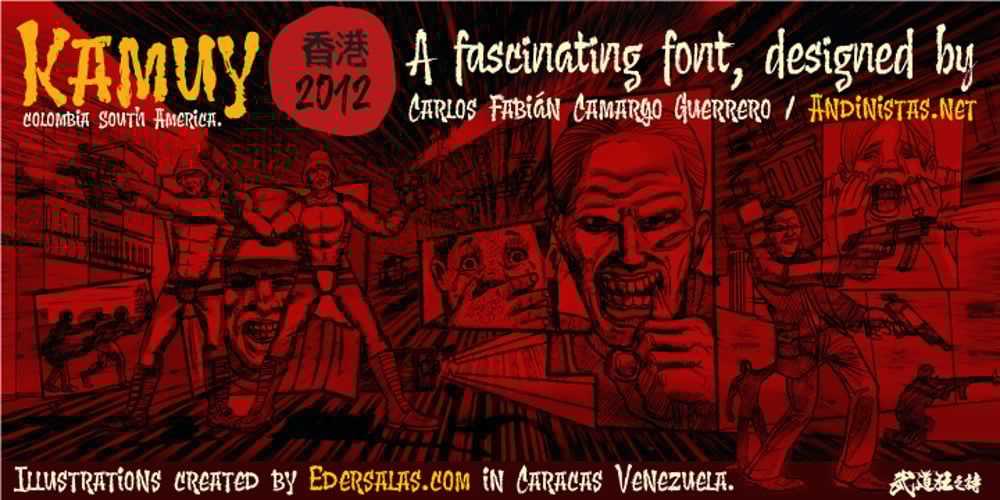
Kamuy Font Family was designed by Carlos Fabián Camargo Guerrero and published by Andinistas. Kamuy contains 2 styles and family package options. Kamui is a font designed by Carlos Fabian Camargo G. and used to write headlines. Its strategy makes it ideal for covers and advertisements with Japanese-style manga comics requiring latin style. Precisely its purpose was inspired by typographical classics such as Mistral by R. Excoffon and Zapfino by H. Zapf that then were diluted by separate strokes as blackletter calligraphy. However, high doses of miscegenation and lettering untimely torn between 50% esthetic and 50% legibility. That way his radical expression is highly profitable for composing and designing words and phrases with Eastern look. And more importantly, the writing seems drawn quickly with thin-tipped brush staining over a rough surface, from that process comes the idea of corroded outlines and changes in contrast. In conclusion, some diagonal strokes, horizontal, curved and vertical stand or hide from their simulation of scarcity or abundance of ink clots. That way each stroke seems inconsistent, footprint of the 423 brush drawing glyphs in Regular Kamuy. In that sense, the OpenType features included are: Standard Ligatures, Contextual Alternates, discretionary ligatures, swash, stylistic alternates, alternatives for titles, ordinals, fractions. And to end the Variable “Kamuy Dingbats” has is 52 fictitious drawings and zamurais.